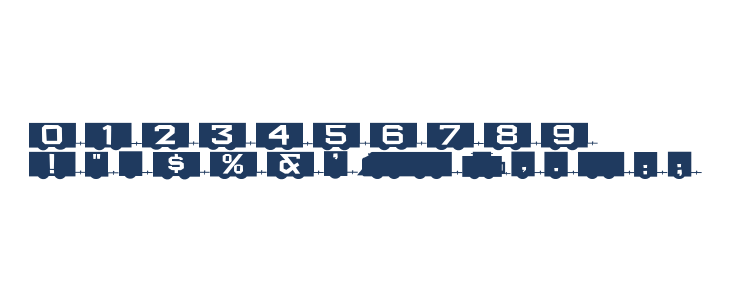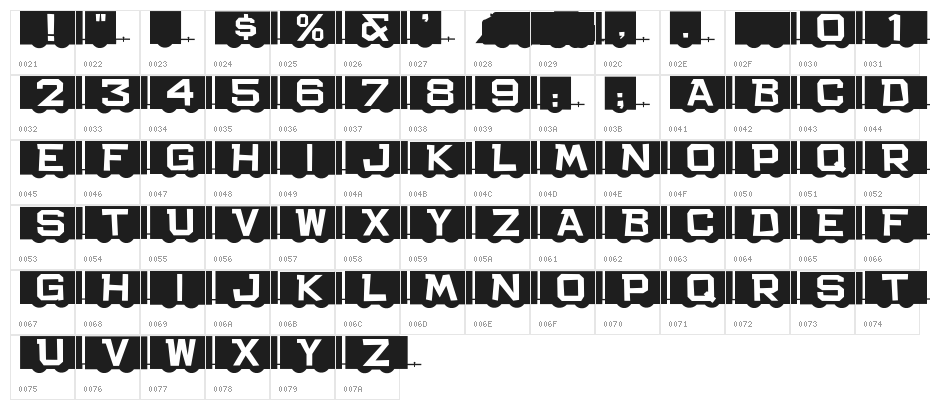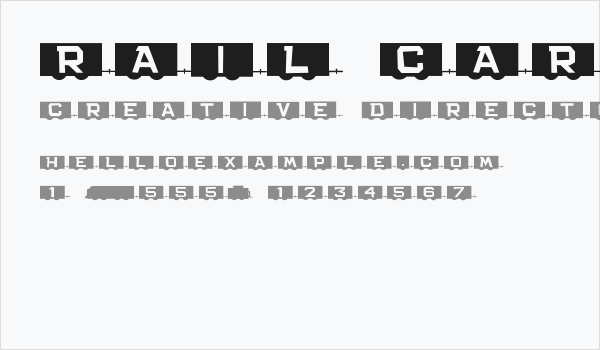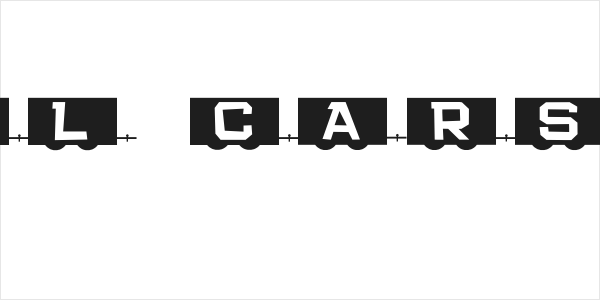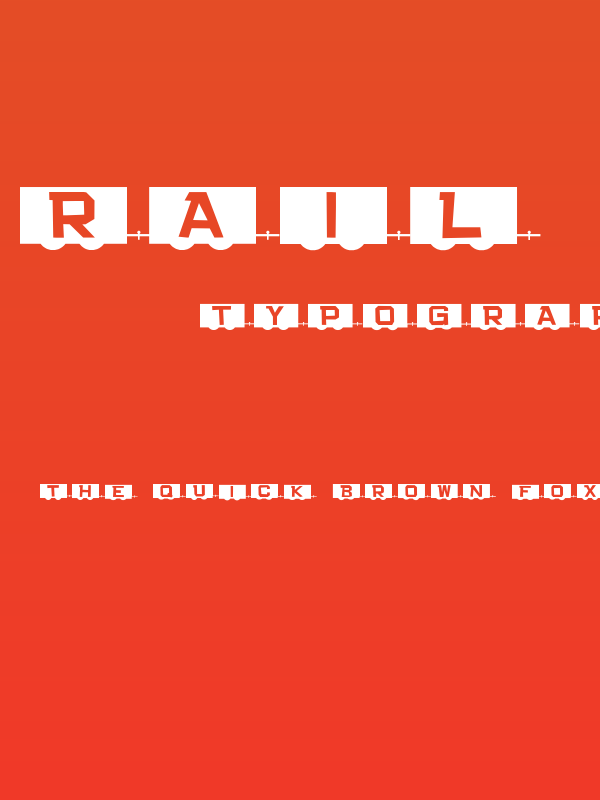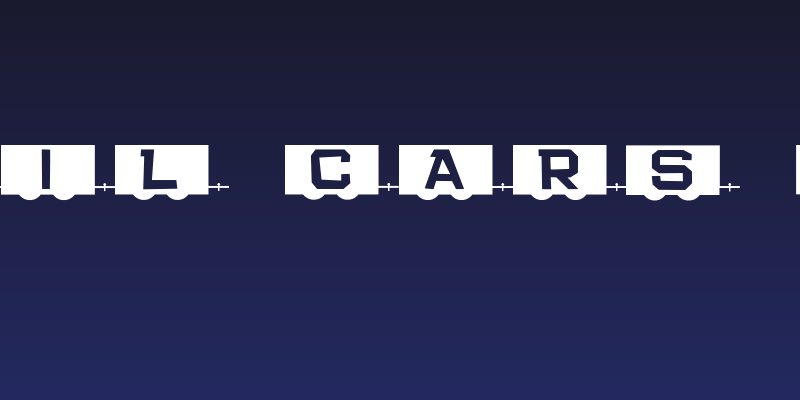
Rail Cars JL Font
Rail Cars JL Description
This unique and playful font features characters designed to resemble train cars, each letter and number encased within a boxy, train-like silhouette. The font exudes a whimsical and decorative style, perfect for projects that aim to capture a sense of fun and creativity. The characters are bold and distinct, with a consistent width that mimics the uniformity of train cars linked together. The special characters, including symbols like $, %, and &, also follow this train car motif, adding to the cohesive design. The font's design is highly thematic, making it ideal for transportation-related projects or children's materials.
| Proposed Projects | Ideal for children's books, transportation-themed posters, educational materials, and playful branding projects. |